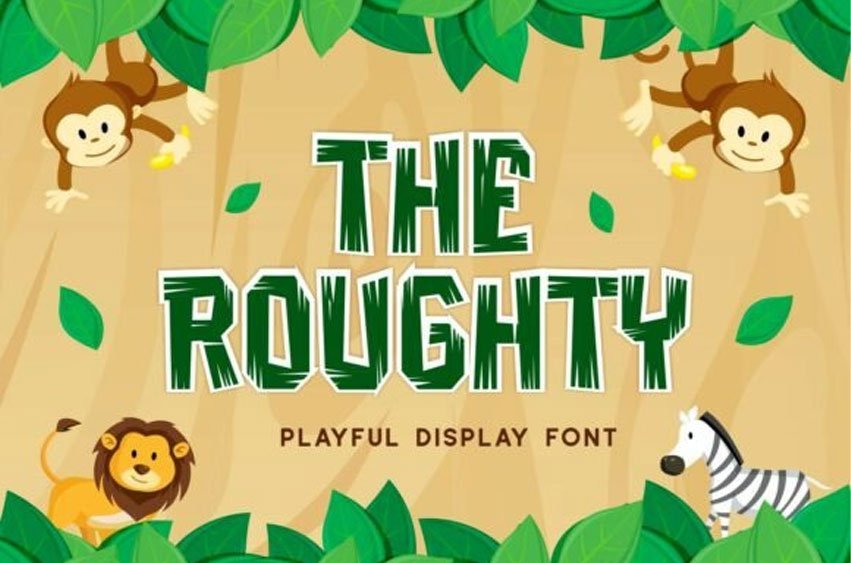
The Roughty Font
The Roughty Font is a adventurous and decorative playful font designed to capture the spirit of exploration. This font have a rough, textured, and slightly distressed appearance, mimicking a woodcut style. The font features jagged edges and irregular, giving it a rugged, adventurous, and slightly vintage feel.
Roughty perfect for children’s books, zoo or safari themes, adventure branding, posters, games, adventure themed brand, and creative jungle aesthetic.